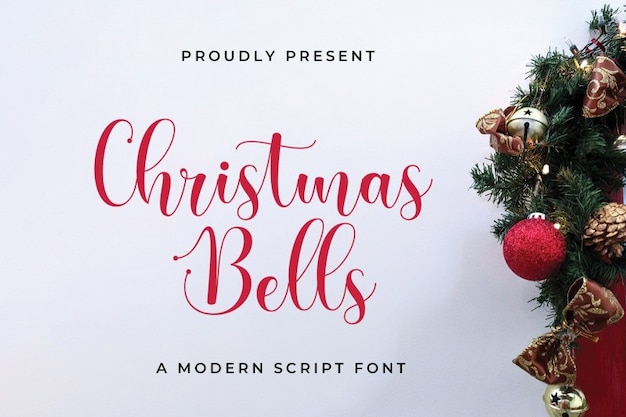
Christmas Bells
Christmas Bells Font
Christmas Bells is a modern, elegant font that beautifully captures the festive spirit of Christmas. With its refined curves and delicate letterforms, it brings a sophisticated touch to "Merry Christmas" messages, holiday cards, or seasonal invitations. Perfect for upscale designs, Christmas Bells combines timeless charm with contemporary flair for a truly merry feel.